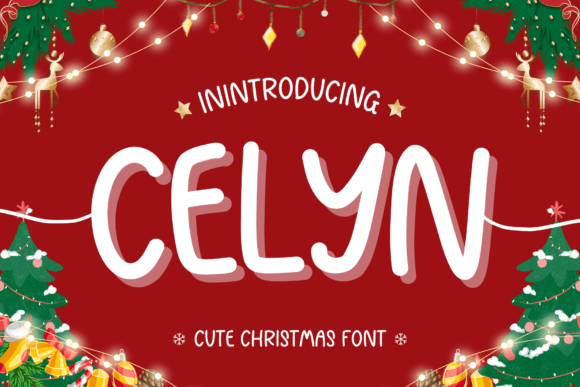
**Celyn Font: The Key to Unlocking Your Creative Brilliance**
In a world saturated with digital monotony, Celyn Font emerges as a beacon of individuality and charm. This captivating handwritten font, brought to you by MyFontsShop, is meticulously designed to infuse your creative projects with a touch of artistry and personality.
With its graceful strokes and elegant curves, Celyn Font is the perfect choice for those seeking to make a lasting impression. Whether you're a seasoned designer, a passionate crafter, or a DIY enthusiast, this font will elevate your work to new heights, transforming it into a masterpiece that speaks volumes about your unique style.
**Why Choose Celyn Font?**
* **Unleash Your Inner Artist:** Celyn Font is more than just a font; it's an invitation to unleash your inner artist. Its free-flowing nature allows your creativity to flourish, enabling you to create designs that are as distinctive as your imagination.
* **Make a Statement:** In a sea of uniformity, Celyn Font stands out as a bold and confident statement. Its unique character adds a touch of intrigue and sophistication to your projects, ensuring that they leave a lasting impression on your audience.
* **Endless Creative Possibilities:** The versatility of Celyn Font knows no bounds. From eye-catching logos and branding to personalized invitations and social media graphics, this font seamlessly adapts to your creative vision, bringing your ideas to life with stunning results.
**Elevate Your Creative Journey with Celyn Font**
Celyn Font is more than just a font; it's a passport to a world of creative possibilities. Its enchanting design will transform your projects into works of art, captivating your audience with its timeless beauty.